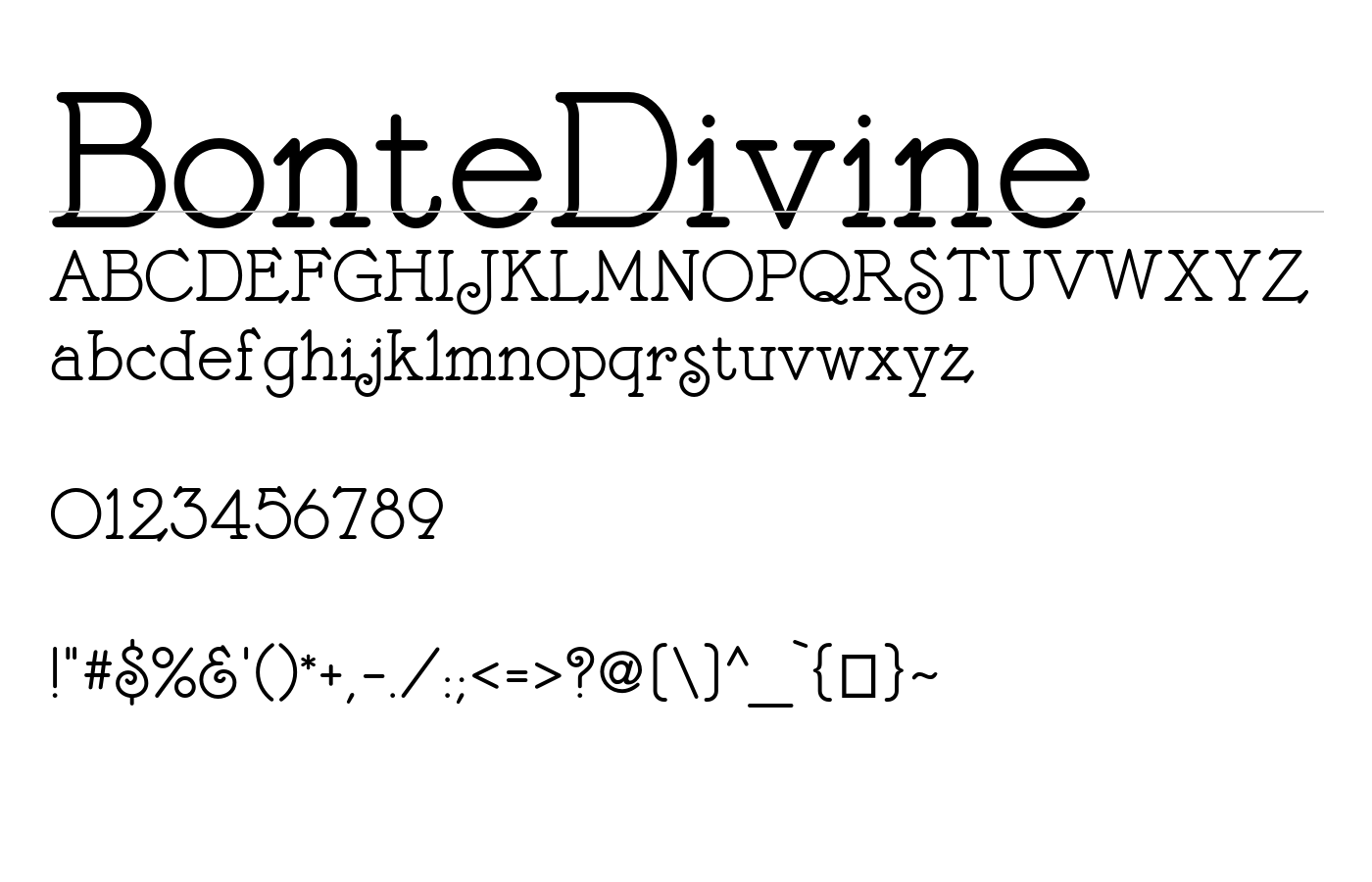
BonteDivine is a charming serif font with an elegant twist, featuring thin strokes and delicate, bracketed serifs that give it a refined yet playful character. Its medium contrast and unique letterforms, like the curled tails and whimsical curves, make it perfect for creative branding, editorial headlines, and artistic projects that want to blend sophistication with a touch of personality. This font works especially well where a distinctive, stylish look is desired without sacrificing readability.
BonteDivine Font
About BonteDivine Font